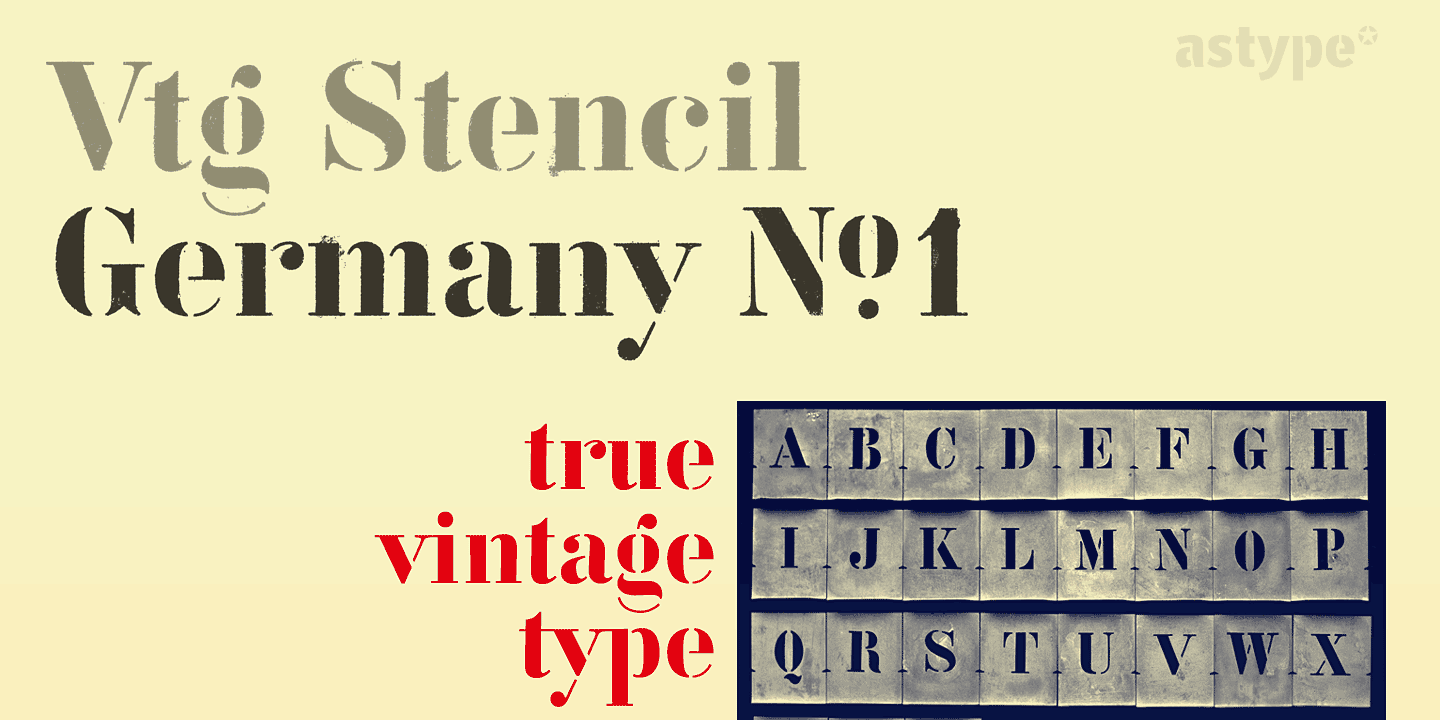
Vtg Stencil Germany No1 Font is perfect for military historical museums, vintage military equipment branding, historical documentary titles, authentic wartime reproduction projects, industrial heritage displays, military collector exhibitions, historical reenactment materials, and authentic period documentation communications.
What makes Vtg Stencil Germany No1 Font truly exciting is its historically authentic ability to capture the precise functionality and utilitarian design of German military stencil typography through meticulously researched letterforms that embody the systematic efficiency and technical precision of wartime industrial design. This historically significant typeface features distinctive stencil characteristics with period-accurate proportions that instantly convey historical authenticity, systematic organization, and documentary credibility, making it the perfect choice for historical projects requiring absolute period accuracy, museum exhibitions presenting military history, and communications with audiences who demand authentic historical representation and scholarly precision.
The Vtg Stencil Germany No1 Font family includes regular, condensed, bold, and weathered variations, complemented by period-appropriate symbols and historical alternates that enhance the authentic military atmosphere, providing designers with comprehensive tools for creating historically accurate brand experiences and documentary communications that resonate with history enthusiasts and military heritage communities.
Historical museums and military heritage organizations will discover that Vtg Stencil Germany No1 Font Free Download delivers the documentary authenticity and historical credibility needed to create accurate representations that educate audiences about military history and industrial design heritage. This versatile typeface excels in both intimate exhibit applications and large-scale museum displays, maintaining its historical character while ensuring optimal readability for educational purposes.
The font's historically researched construction demonstrates exceptional attention to both period accuracy and educational functionality, with systematically precise proportions that ensure authentic presentation while maintaining superior legibility in museum environments. From historical exhibits to documentary films, this authentic typeface maintains its military heritage appeal while providing the reliability needed for comprehensive historical education applications. Military history organizations appreciate how this font effortlessly communicates historical accuracy, documentary precision, and distinguished American appreciation for German military design heritage through superior historically-informed typography.